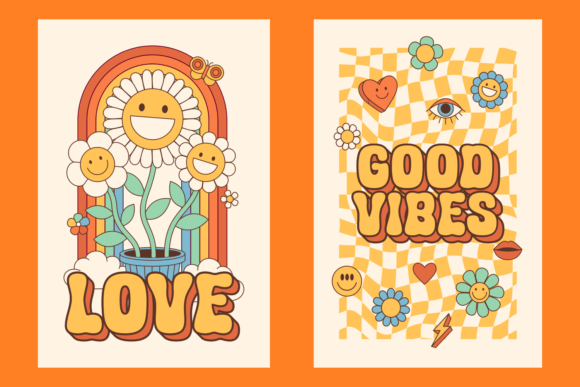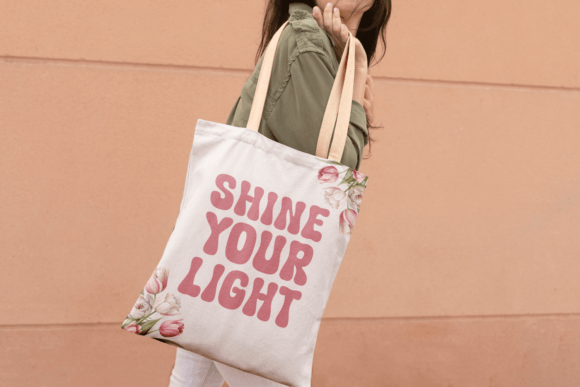
Romance Storm Font
Romance Storm is a delightful retro font that captures the playful and nostalgic spirit of mid-20th-century design. With its whimsical curves and vintage flair, this typeface brings a sense of fun and charm to any project, evoking memories of classic advertisements, movie posters, and signage from the past. Whether used for branding, packaging, or promotional materials, “Romance Storm” delivers a memorable and charming visual experience.